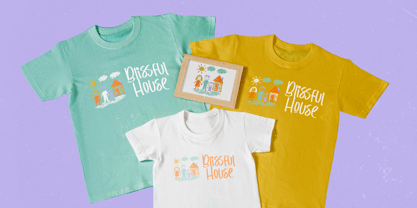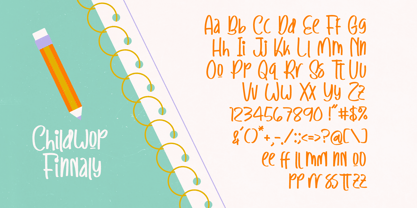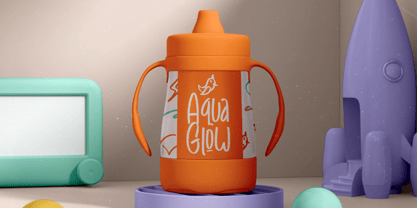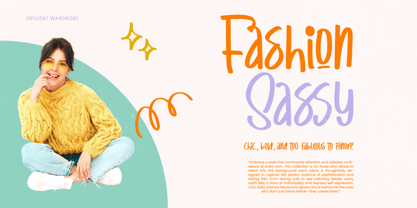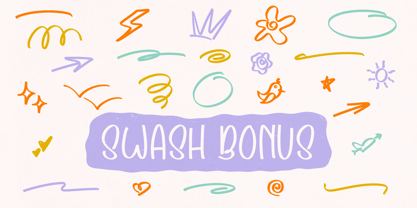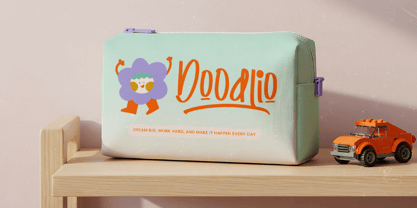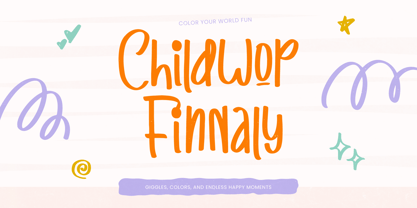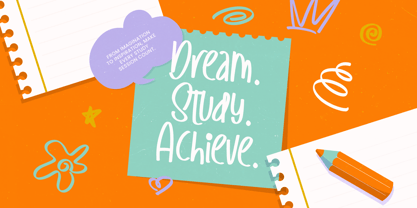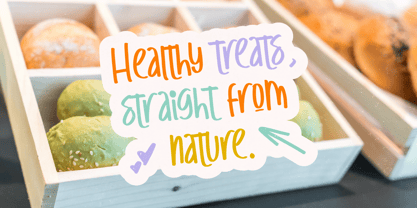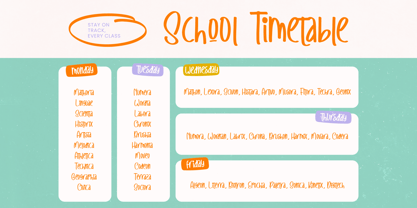
Childwop Finnaly
Die Schriftfamilie Childwop Finnaly wurde von Heru Utama Putra entworfen und von Stylishtype Studio veröffentlicht. Childwop Finnaly enthält 2 Stile und Familienpaketoptionen. Mehr über diese Familie
Childwop Finnaly - Handwritten Kids Font is a vibrant and playful typeface designed to capture the essence of youthful creativity. With its hand-drawn aesthetic and organic letterforms, this font brings an authentic, cheerful personality to any creative project. It strikes the perfect balance between casual legibility and artistic flair, ensuring your message feels both personal and professionally crafted.
Experience the beauty of custom craftsmanship. This dynamic display font is packed with unique ligatures and decorative swashes that allow for a truly hand-lettered look. Childwop Finnaly - Handwritten Kids Font features smooth curves and a friendly weight that makes it stand out against any background. Whether you are aiming for a whimsical feel or a modern crafty vibe, the versatile character set provides endless opportunities for expressive typography.